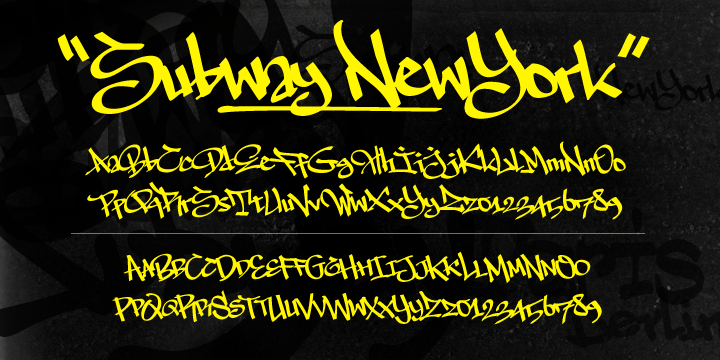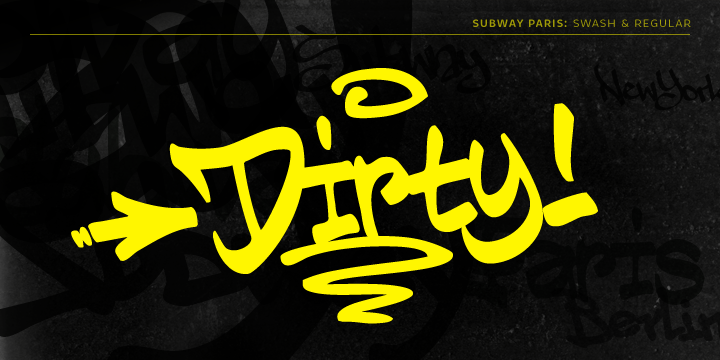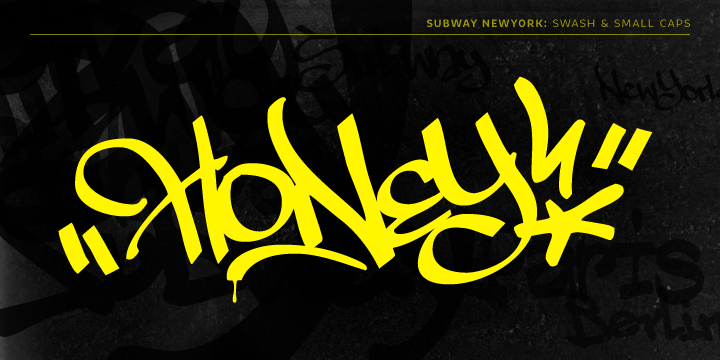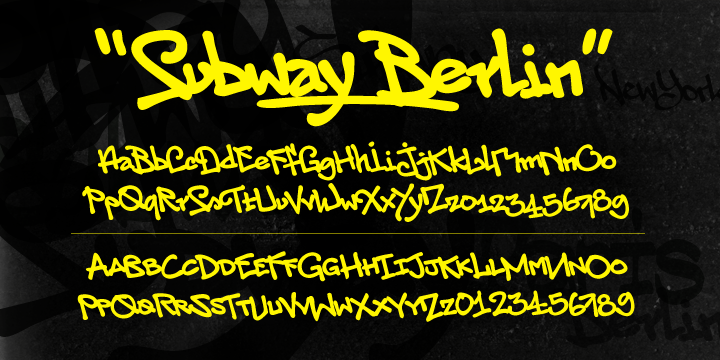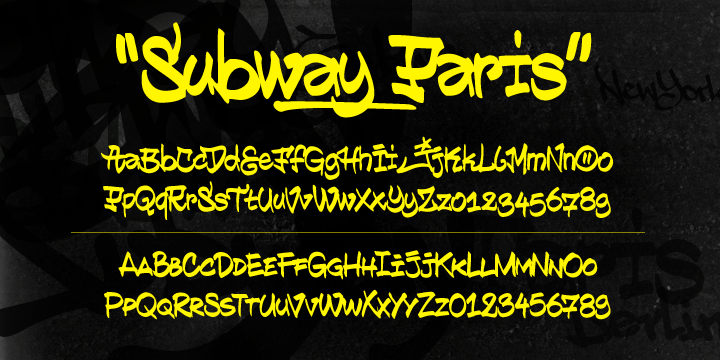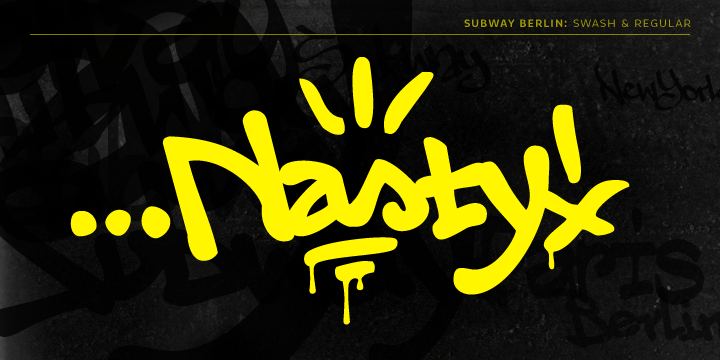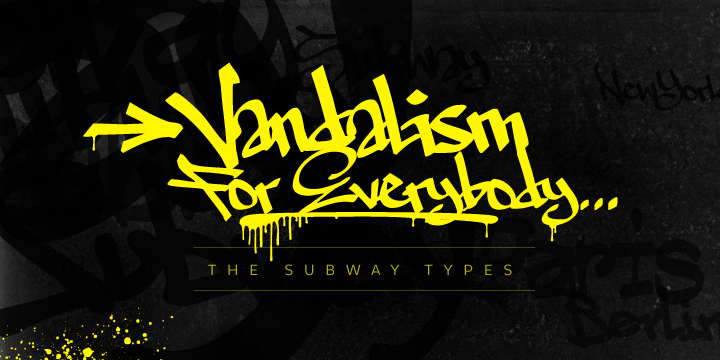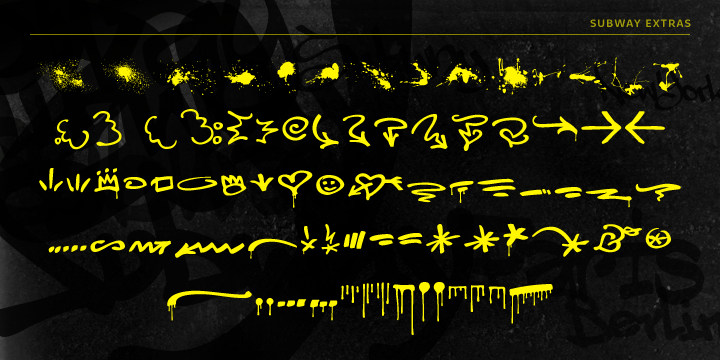
Subway Types
Subway Types is a font family. This typeface has four styles and was published by HVD Fonts.
The idea was to create a package containing prominent tag styles of graffiti strongholds like New York, Berlin and Paris.
Shik (New York), Deon (Paris) and Etan (Berlin) came together to show the typical tag styles of their respective metropolitan areas.
The fonts were digitized, spaced, kerned and programmed by Hannes von Döhren.
The Subway Types are highly equipped.
Each one consists of 4 alphabets (Uppercase, Lowercase, Small Caps & Swash).
They also include ligatures and some specials like underlines and a huge range of accents for a wide language support.
The idea was to create a package containing prominent tag styles of graffiti strongholds like New York, Berlin and Paris. Shik (New York), Deon (Paris) and Etan (Berlin) came together to show the typical tag styles of their respective metropolitan areas. The fonts were digitized, spaced, kerned and programmed by Hannes von Döhren.
The Subway Types are highly equipped. Each one consists of 4 alphabets (Uppercase, Lowercase, Small Caps & Swash). They also include ligatures and some specials like underlines and a huge range of accents for a wide language support.